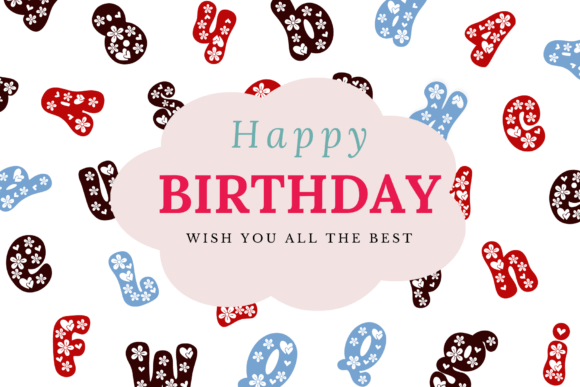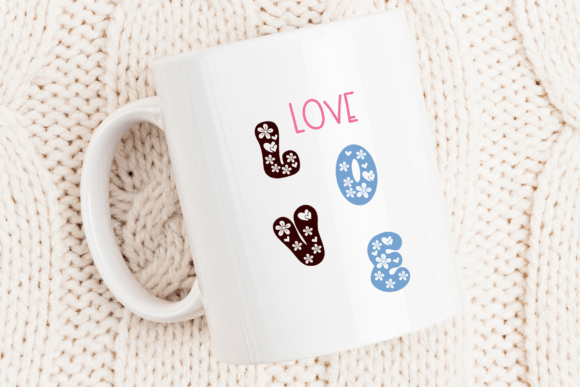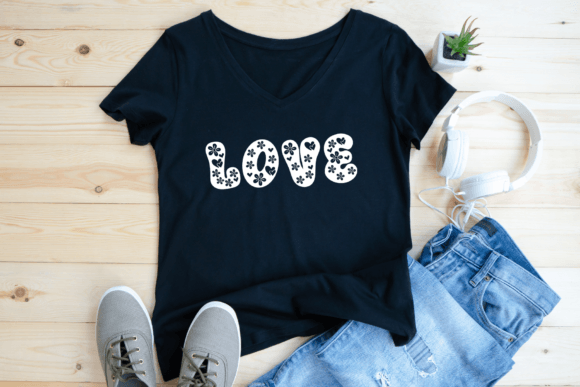
Introduction to Heart Flower Font
Heart Flower is an organic and beautiful decorative font, featuring lovely ornaments.
Key Features of Heart Flower Font